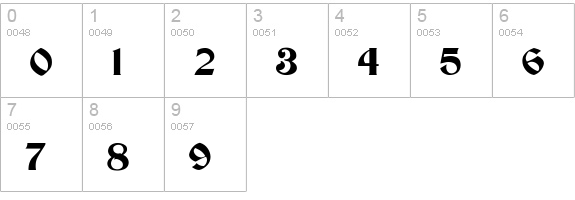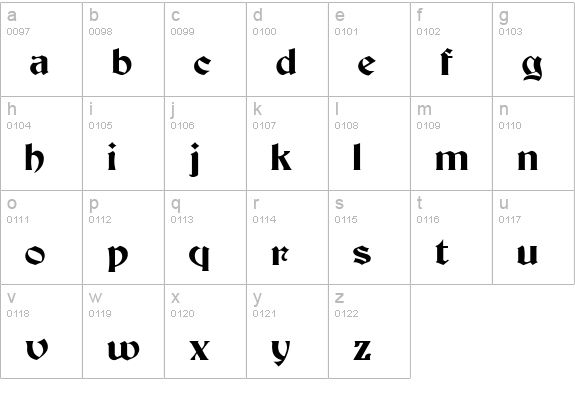
Bendor-Medium is a balanced, medium-weight variant in the Bendor typeface family \xE2\x80\x94 well suited to sub-headlines, navigation, and balanced editorial work.
Bendor-Medium is a contemporary and versatile font that exudes elegance and sophistication. With its balanced proportions and clean lines, this font is perfect for a wide range of design projects, from branding to editorial design. The medium weight offers a perfect balance between readability and style, making it ideal for both headers and body text. But the best part? Bendor-Medium is available for free download at FontsMarket.com! This means you can easily access this high-quality font and incorporate it into your projects without breaking the bank. Don't miss out on this amazing opportunity to enhance your designs with the timeless beauty of Bendor-Medium.